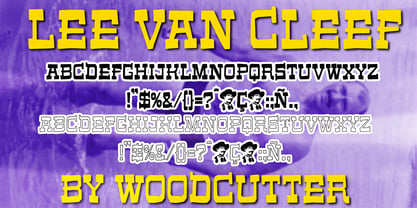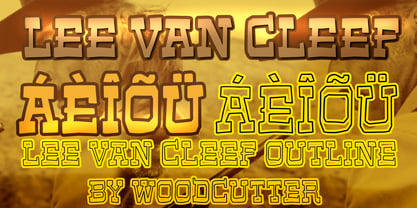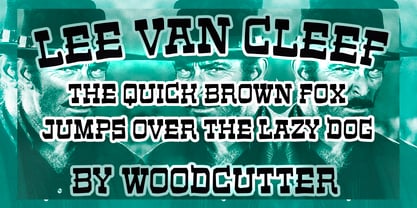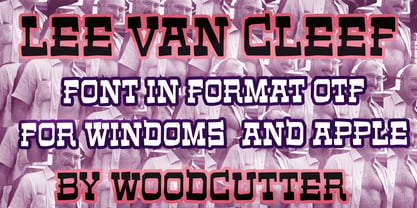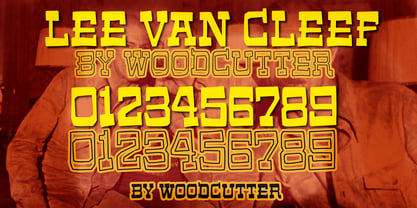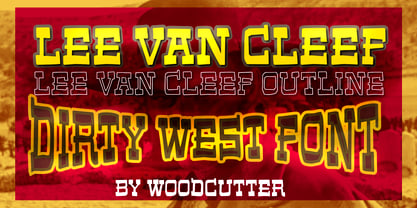
Lee Van Cleef
La familia tipográfica Lee Van Cleef fue diseñada por Jordi Manero y publicada por Woodcutter. Lee Van Cleef contiene 2 estilos y opciones de paquete familiar. Más información sobre esta familia
Lee Van Cleef is a western-inspired type family that combines the classic character of the Old West with a more informal, direct, and display-oriented interpretation. Designed in uppercase with full accent support, this typeface stands out through its bold shapes, relatively straight lines, and straightforward construction, creating a simple yet highly distinctive visual identity. Its aesthetic recalls old saloon signs, western movies, vintage business lettering, and printed advertisements from another era.
The characters of Lee Van Cleef feature a strong and balanced structure, with firm strokes that communicate confidence and power without becoming excessively ornamental. Its slightly irregular construction adds a human and relaxed quality, moving the typeface away from overly traditional western lettering and toward a more contemporary and versatile graphic language.
The family includes two complementary styles. Lee Van Cleef features completely solid black characters, providing a strong and direct graphic presence that works perfectly for headlines, logos, posters, and high-impact compositions. In contrast, Lee Van Cleef Outline preserves the same shapes and proportions while transforming the characters into hollow outlined forms, creating a lighter and more open appearance.
Lee Van Cleef works especially well for branding, packaging, posters, music covers, editorial design, and projects inspired by the western aesthetic, combining tradition, toughness, and an informal display personality.